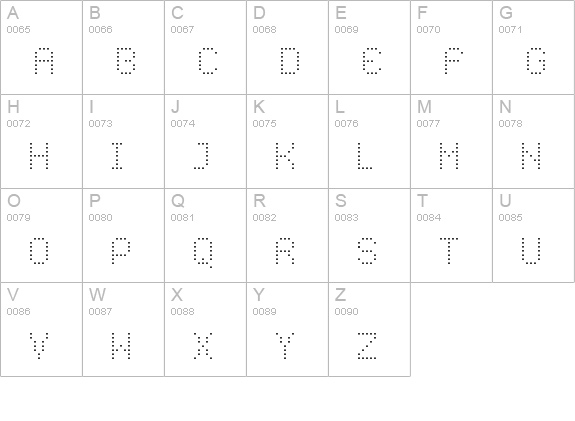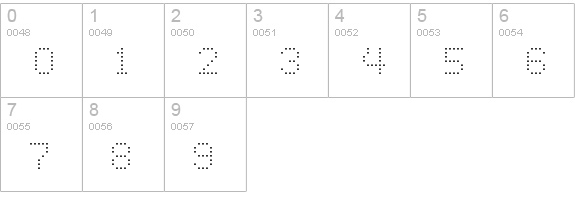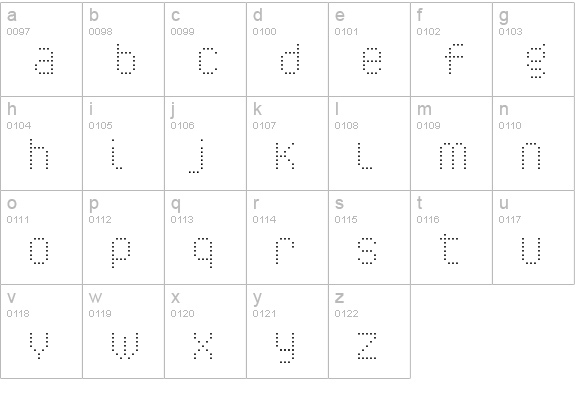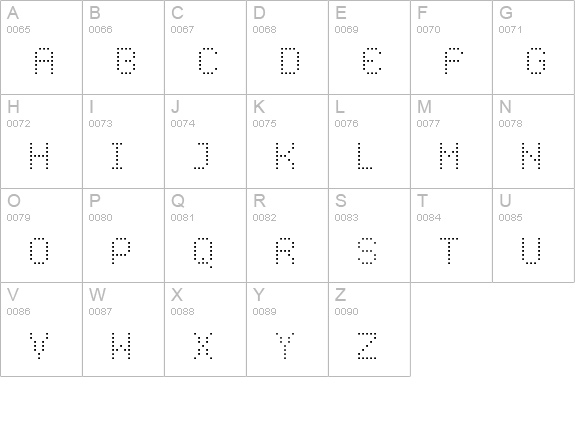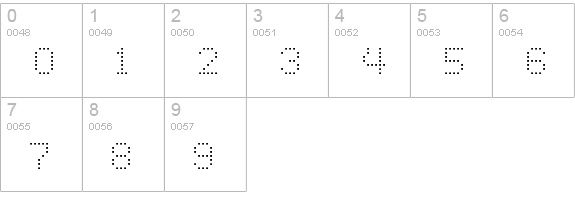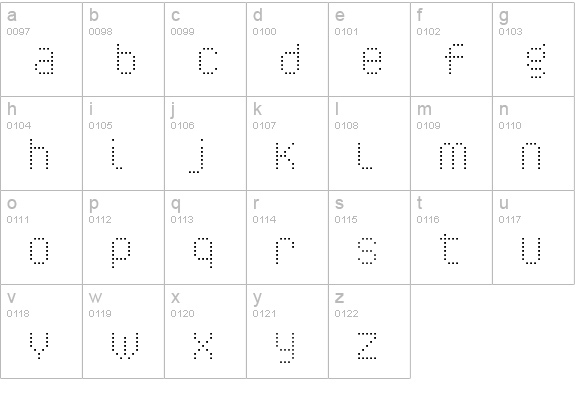
CALIPER-000DL font is a modern and stylish typeface that exudes elegance and sophistication. Its sleek lines and geometric shapes make it perfect for a wide range of design projects, from branding to editorial design. The font features a unique blend of sharp angles and smooth curves, giving it a distinctive look that is sure to make your designs stand out. What sets CALIPER-000DL font apart is that it is not only visually appealing, but also free to download. That's right, this stunning font is freely available for download at FontsMarket.com, making it accessible to designers of all levels. Whether you're working on a personal project or a client's commission, CALIPER-000DL font is a versatile and reliable choice that will elevate your designs to the next level. Don't miss out on the opportunity to add CALIPER-000DL font to your collection. Download it for free today at FontsMarket.com and start creating stunning designs that will leave a lasting impression.